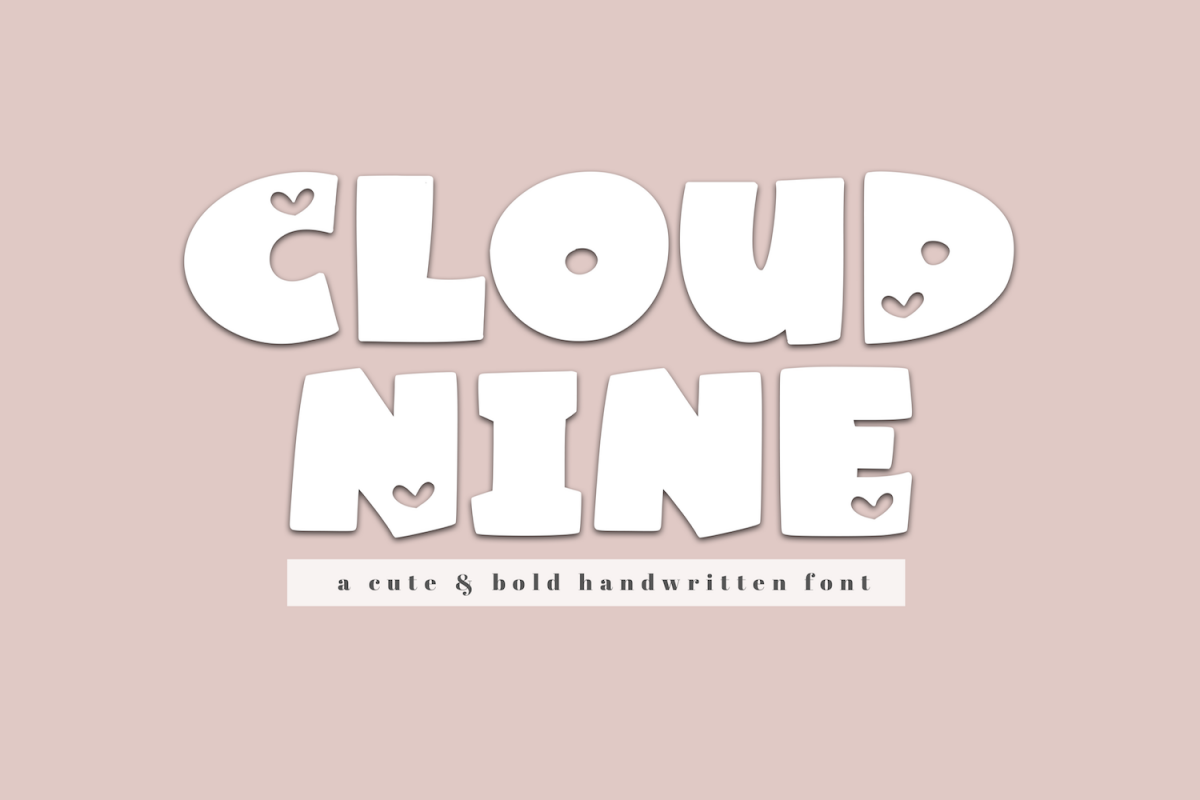
Cloud Nine - A Bold Handwritten Font
Cloud Nine is a bold handwritten font.  The letters are fun and unique!
• The Capital Letters have a cut out heart inside of each letter.
• The Lowercase Letters are solid.
This font is perfect for quotes, headings, blogs, logos, invitations and more!
This font does include accent characters.